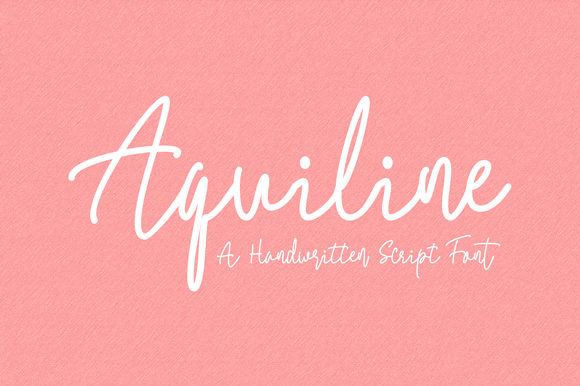
The Ultimate Design Asset: Discovering the Beauty of Aquiline Font
I’ll never forget the time I was working on a branding project for a new boutique hotel. My client wanted a font that would evoke a sense of luxury and sophistication, but still feel approachable and friendly. I spent hours scouring the internet for the perfect font, but nothing seemed quite right. That was until I stumbled upon Aquiline Font. This organic and cursive script font instantly caught my eye, and I knew I had found the perfect fit for my project.
A Personal Review: What I Love About Aquiline
So, what makes Aquiline Font so special? Here are a few things that I absolutely love:
• ✨ Unique and elegant letterforms: Aquiline Font has a distinctive, hand-crafted feel that sets it apart from more traditional script fonts.
• ✅ Highly legible: Despite its ornate nature, Aquiline Font is surprisingly easy to read, even at smaller sizes.
• 💫 Versatile: Whether you’re working on a branding project, a wedding invitation, or a social media graphic, Aquiline Font can adapt to any style or theme.
While Aquiline Font is an amazing asset to have in your design toolkit, there are a few things to keep in mind:
• 🤔 Limited use in body text: While Aquiline Font is legible, it’s still a script font and may not be the best choice for longer blocks of text.
• ⚠️ Requires attention to spacing: Depending on the context, you may need to adjust the tracking or kerning to get the most out of Aquiline Font.
A Practical Guide: Using Aquiline Font in Your Designs
3. Experiment with OpenType features like ligatures and stylistic alternates to add visual interest to your text.
3. Exploring glyphs and stylistic alternates to customize your text and make it more engaging.
The Story Behind Aquiline Font
While the origins of Aquiline Font are shrouded in mystery, it’s said that the font was inspired by the elegant lines of bird silhouettes. The designer, a lover of nature and typography, sought to capture the fluidity and beauty of these shapes in a font that would be both functional and stunning.
What makes Aquiline Font unique? Aquiline Font’s unique blend of organic and cursive elements sets it apart from other script fonts.
Is Aquiline Font suitable for body text? While Aquiline Font is legible, it’s best suited for headings or short blocks of text.
In conclusion, Aquiline Font is an incredible asset to any designer’s toolkit. Its unique blend of elegance and playfulness makes it perfect for a wide range of projects. Whether you’re a seasoned designer or just starting out, Aquiline Font is definitely worth adding to your collection.